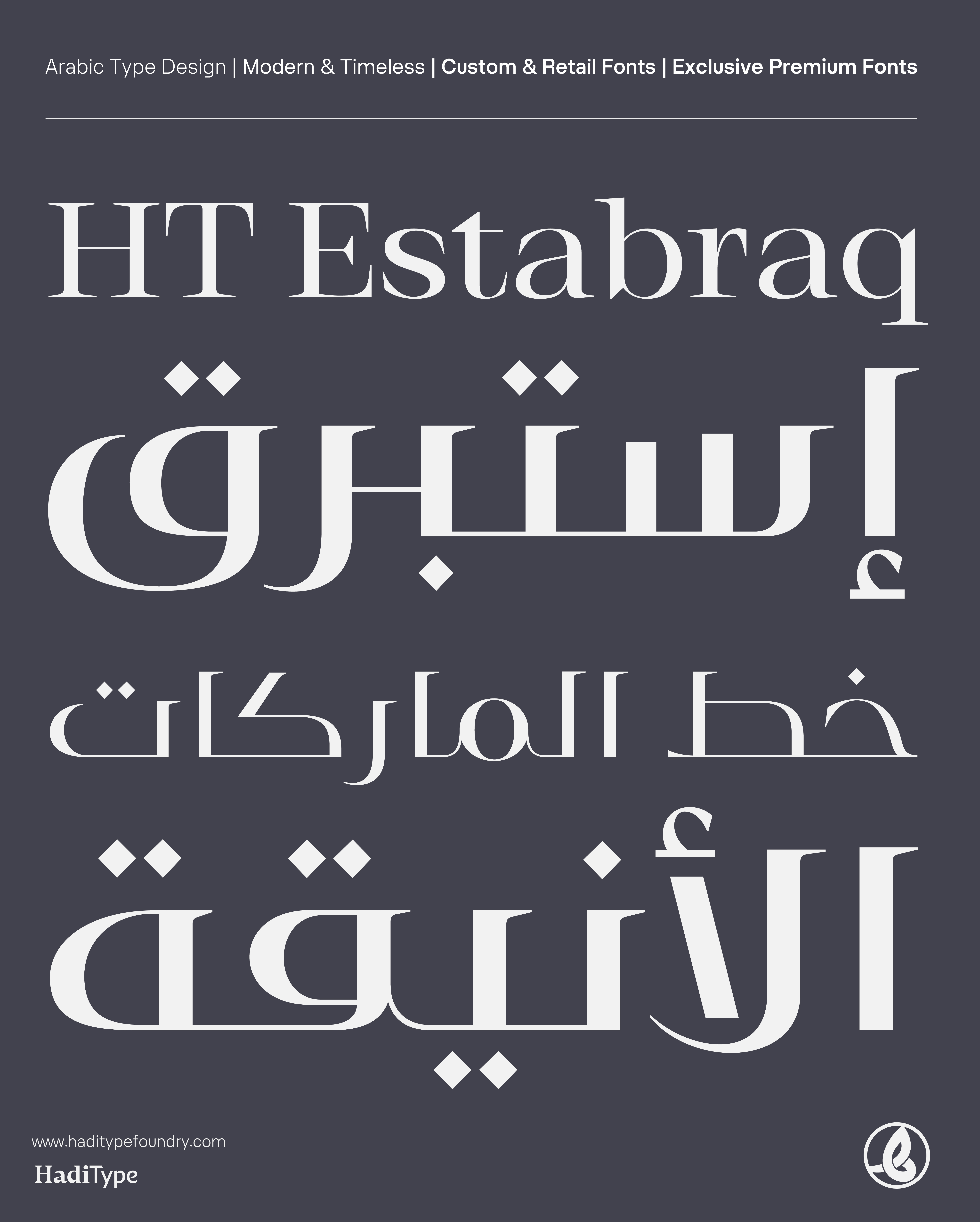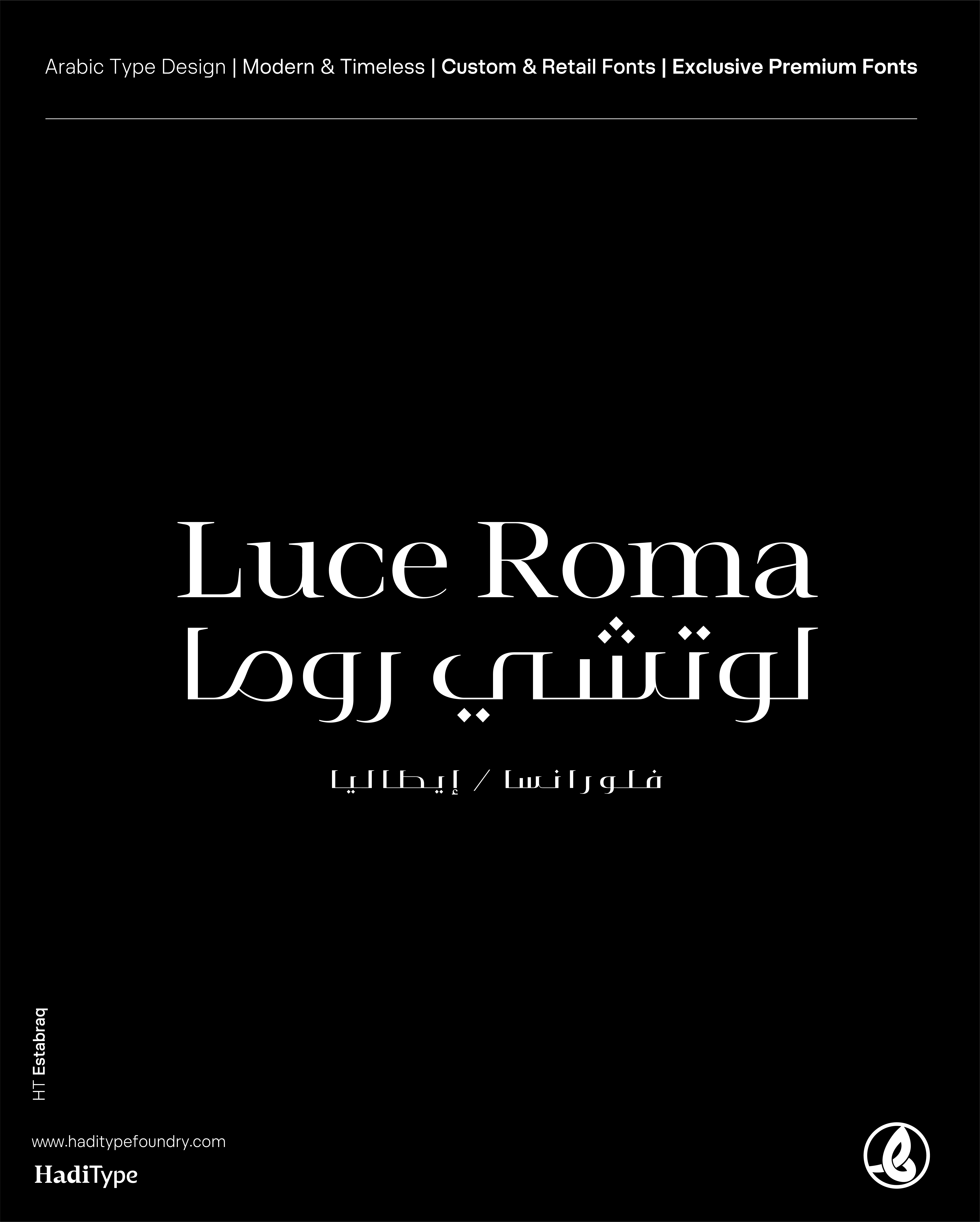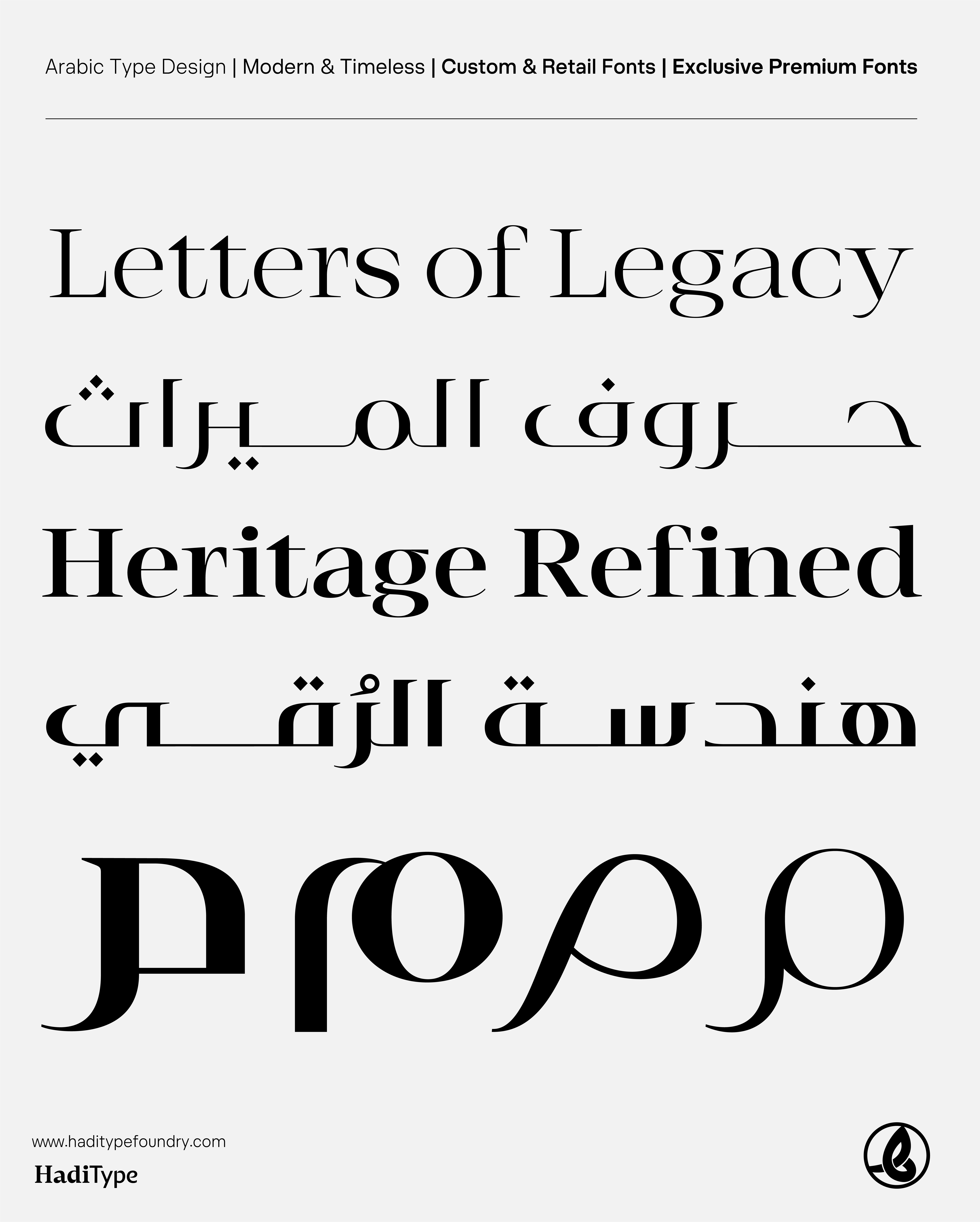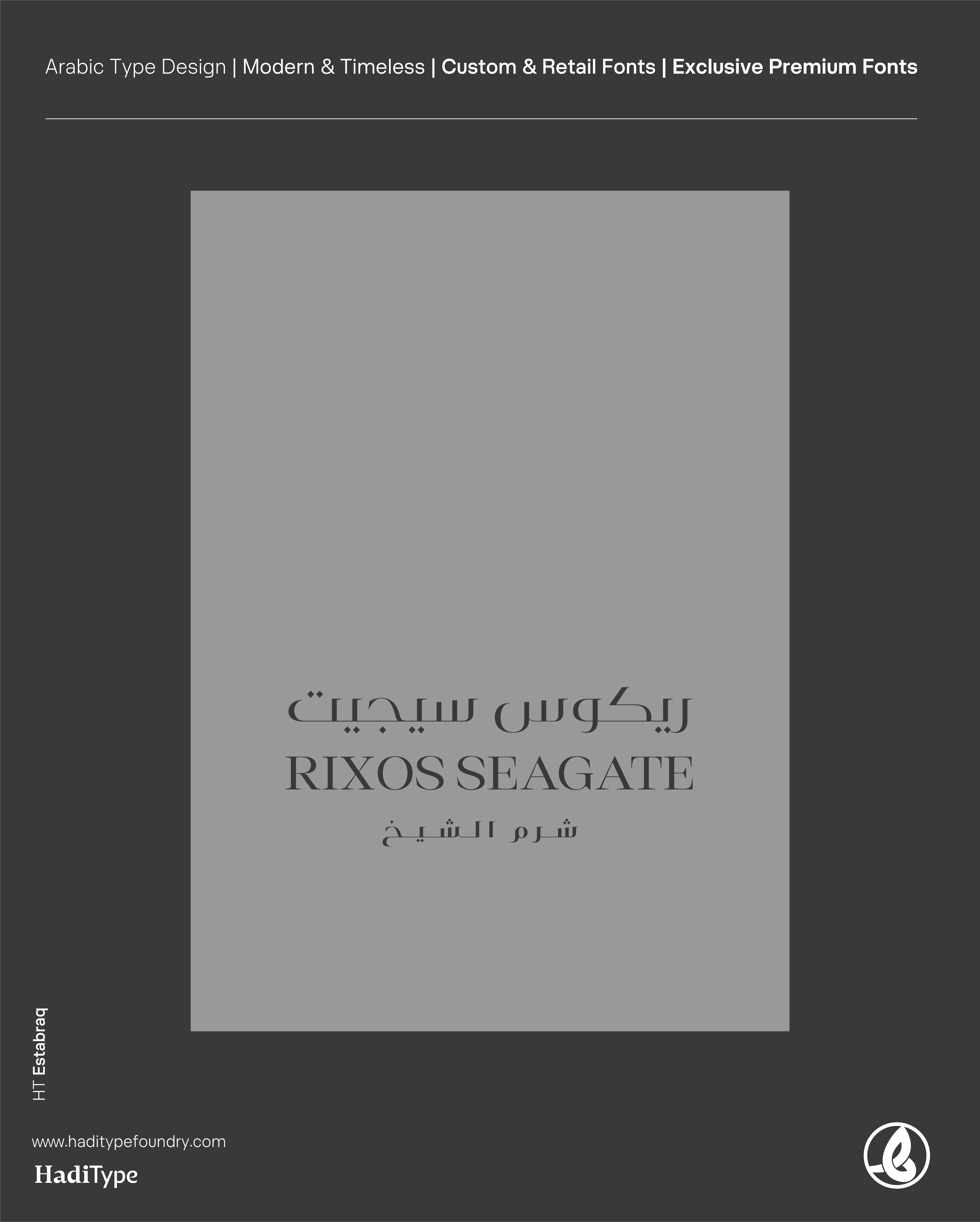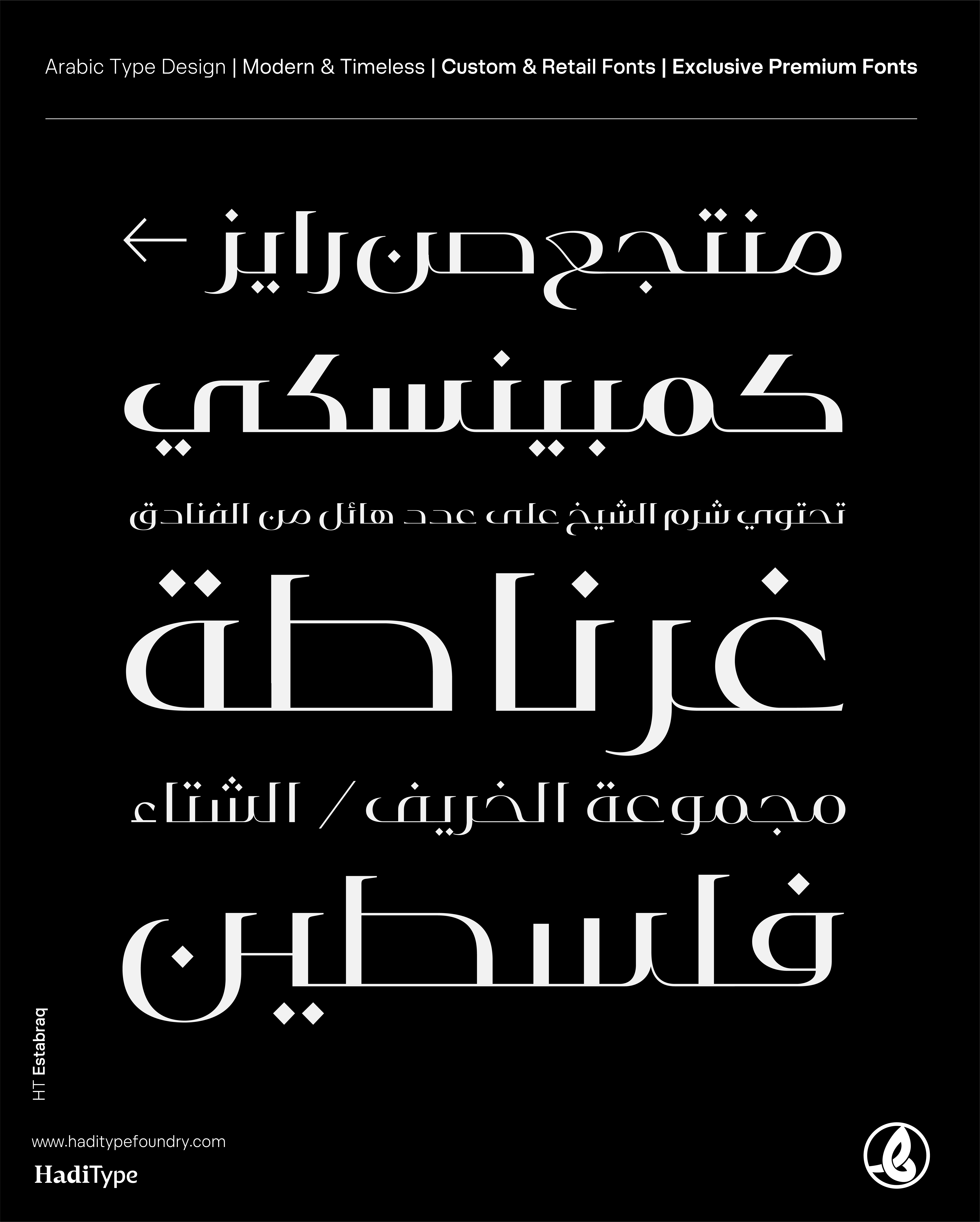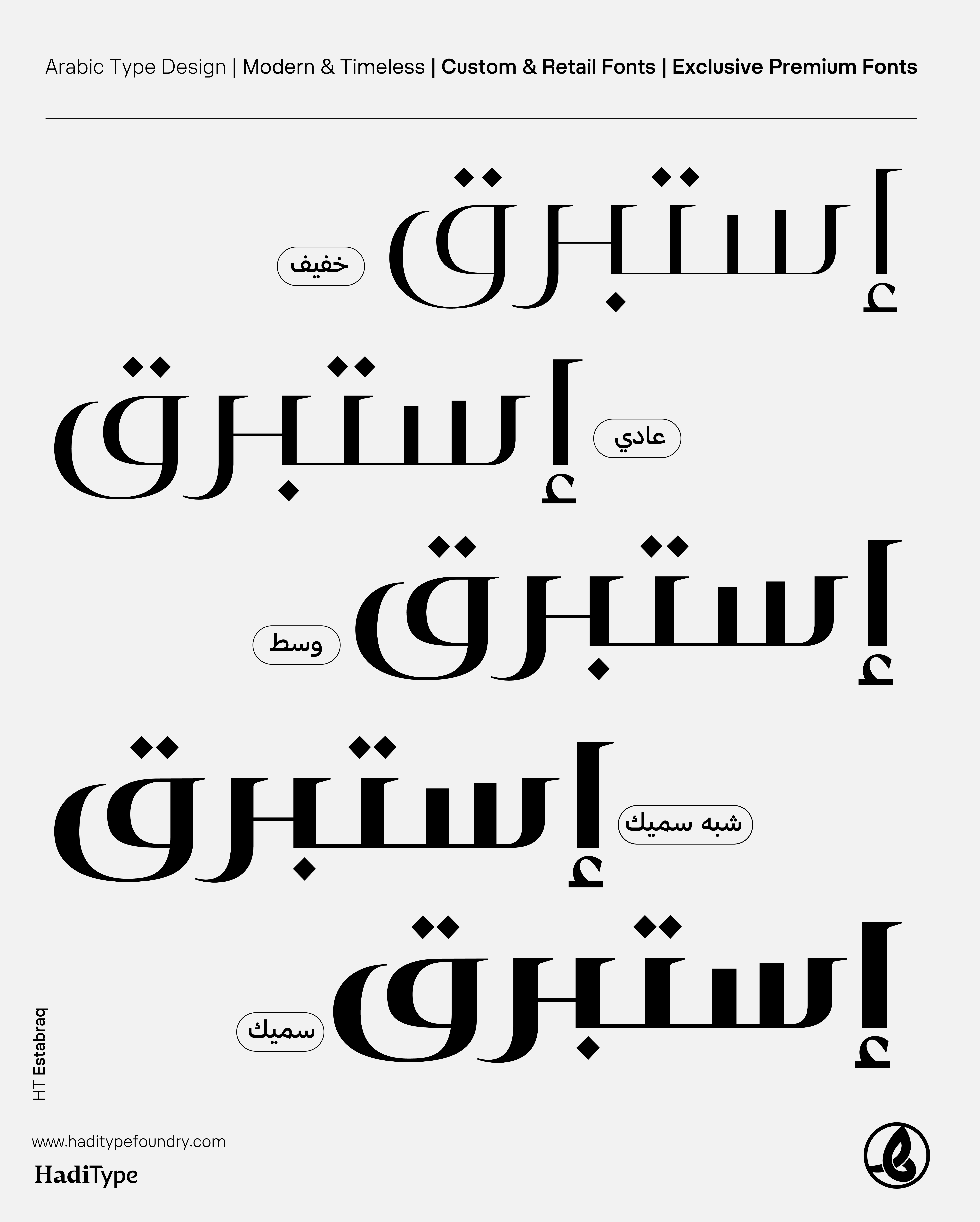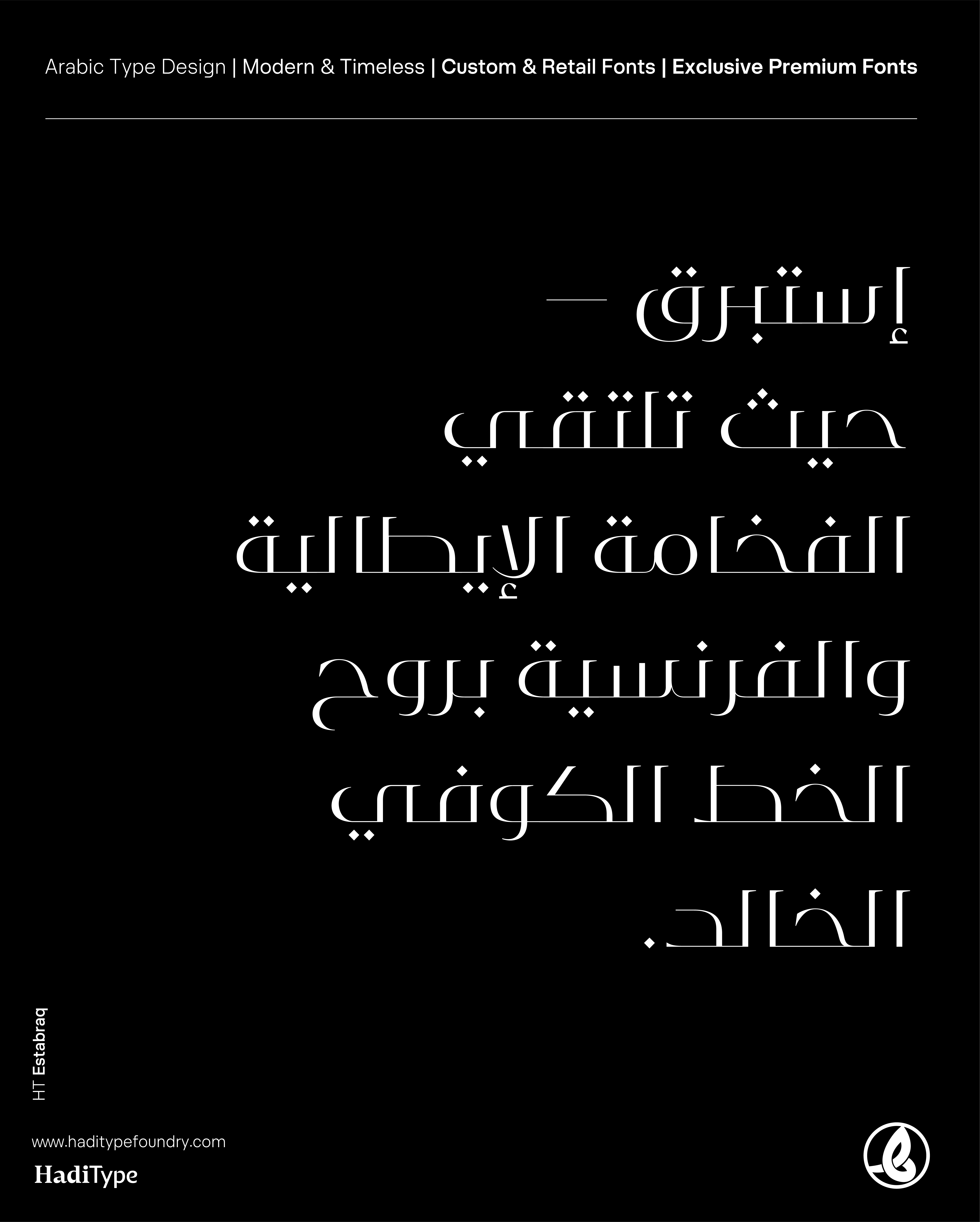
Estabraq
استبرق خط عربي-لاتيني فاخر يجمع بين روح الكوفي والأناقة الأوروبية
Estabraq — a luxury Arabic-Latin typeface blending Kufic spirit with European elegance
Estabraq—Crafted for logos, packaging, and cultural titles
استبرق — يجمع بين بهاء الكوفي ورُقي الحداثة
لتعريب الشعارات وهويات العلامات التجارية
Inspired by the iconic aesthetics of Italian and French luxury brands, Estabraq carries the timeless geometry of Kufic calligraphy reimagined for contemporary design. With sharp details, refined proportions, and a bold yet elegant presence, Estabraq is crafted for high-end branding, editorial projects, and cultural expressions that seek sophistication and authenticity.